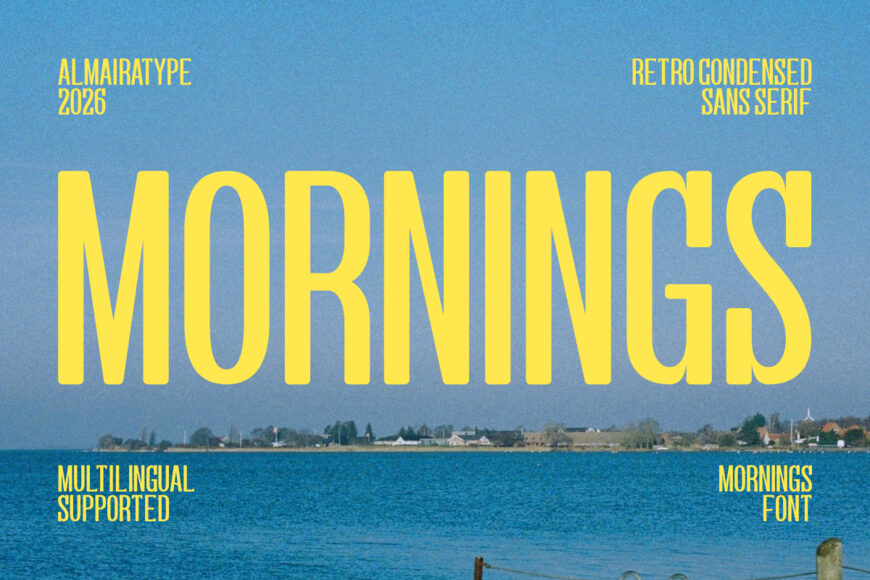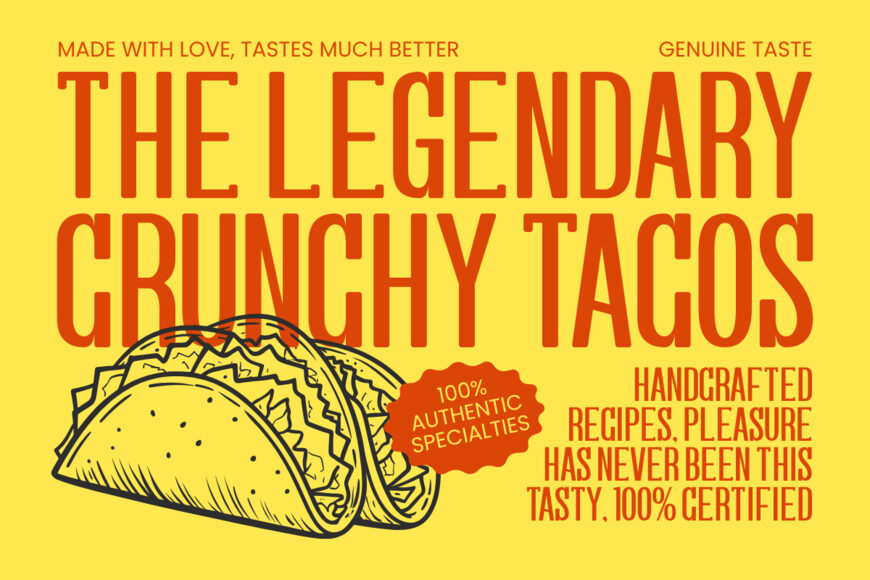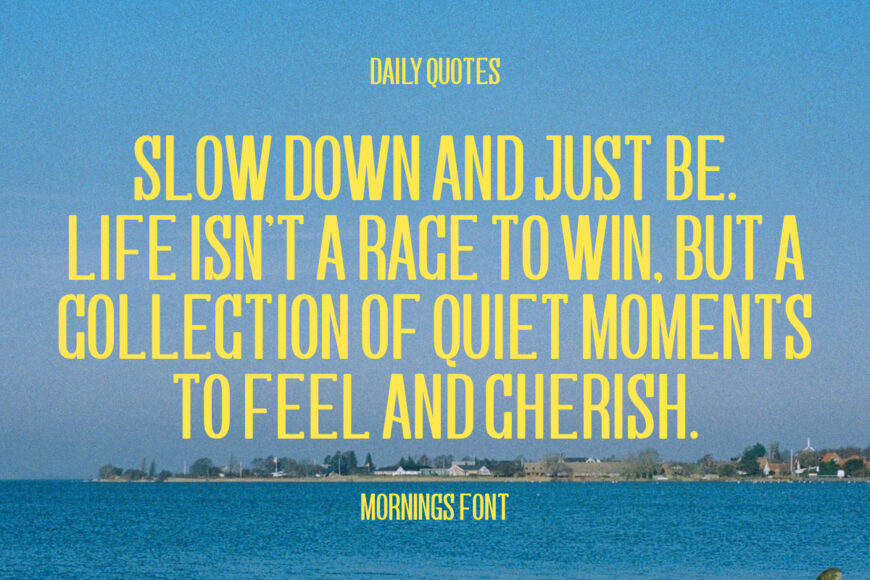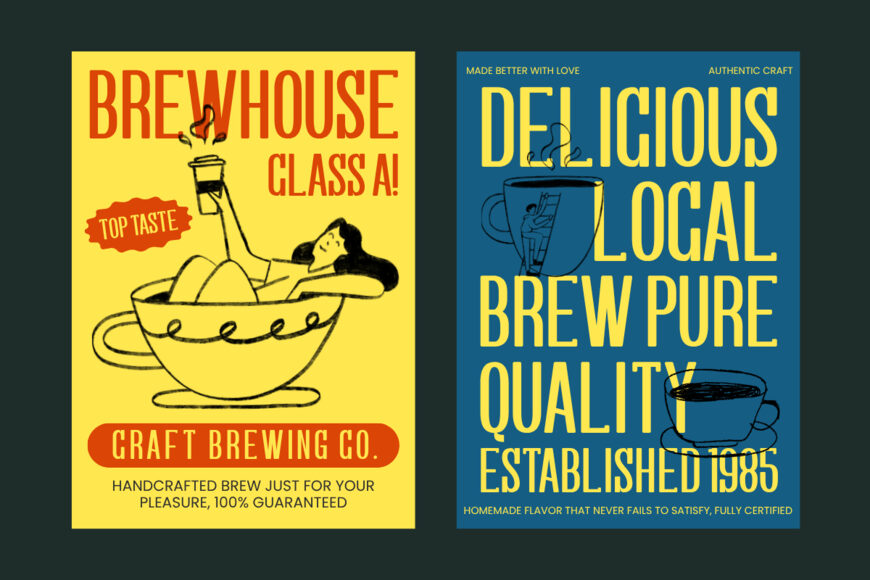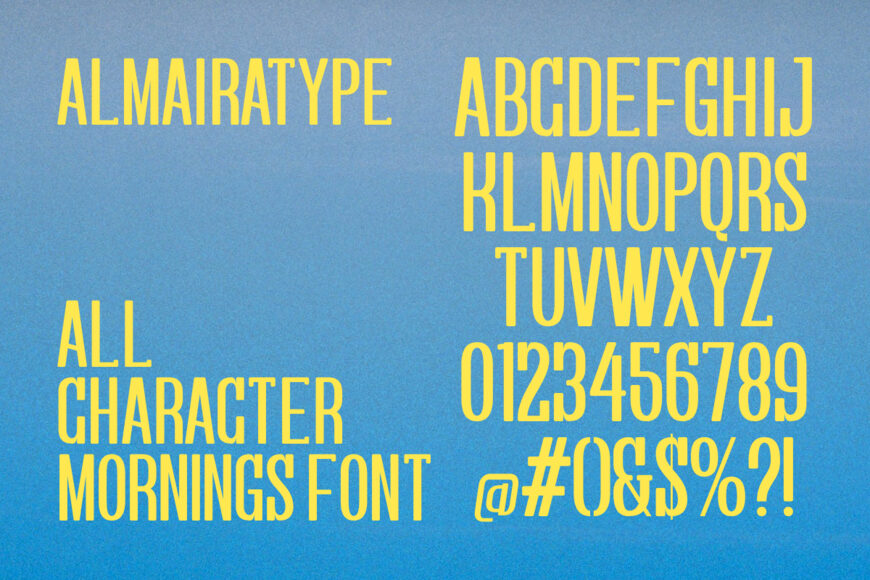
Mornings is a retro condensed sans serif font meticulously crafted to bring a fresh, nostalgic, and high-impact aesthetic to your commercial creative projects. Featuring a beautifully tall and narrow structure with clean geometric lines, this typeface is the perfect choice for professional graphic designers, independent clothing brands, apparel makers, and print-on-demand (POD) entrepreneurs looking to create top-selling merchandise.
Whether you are designing vibrant summer t-shirts, vintage-inspired outdoor travel posters, striking social media quotes, or custom product packaging, Mornings delivers a commanding yet approachable visual presence.